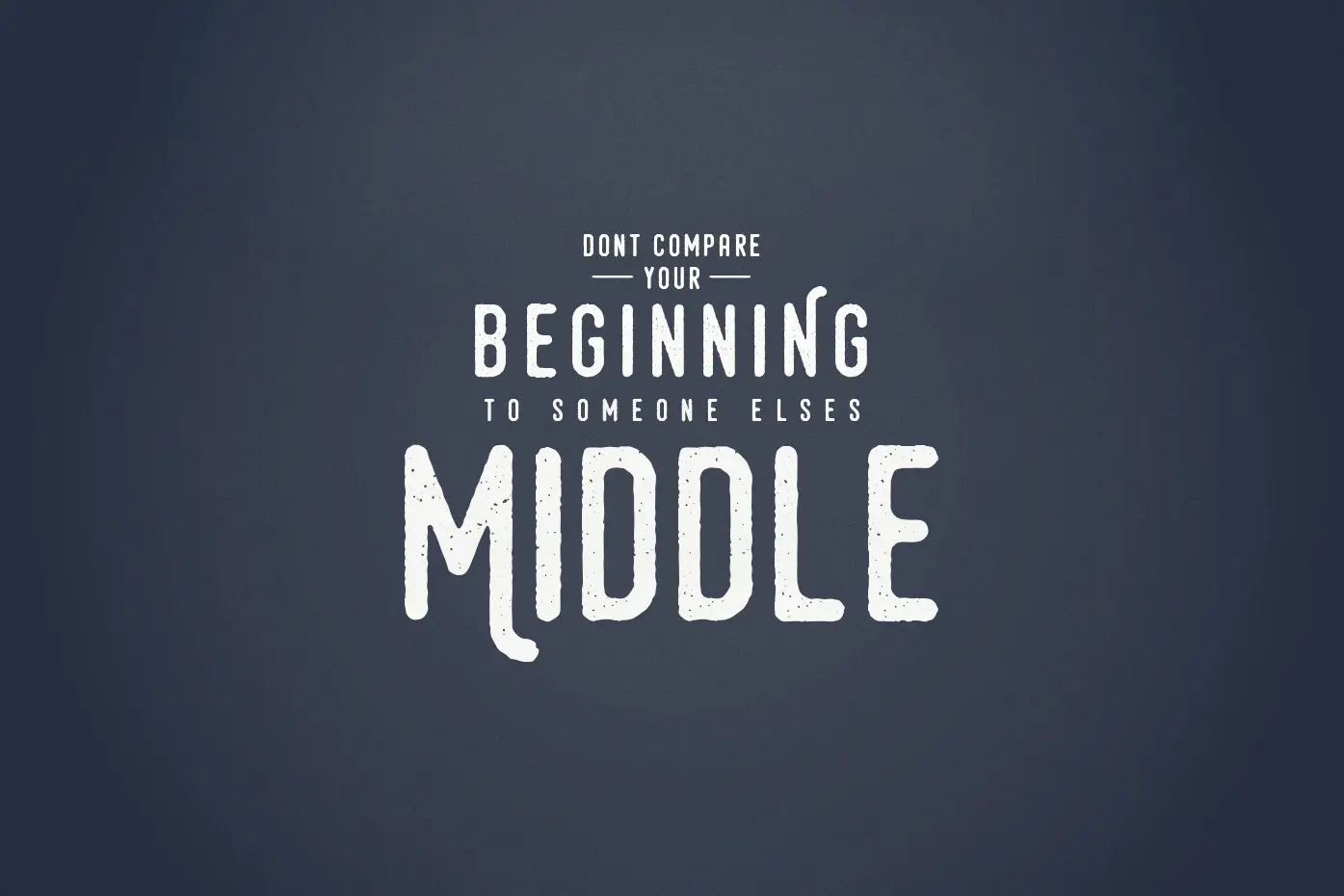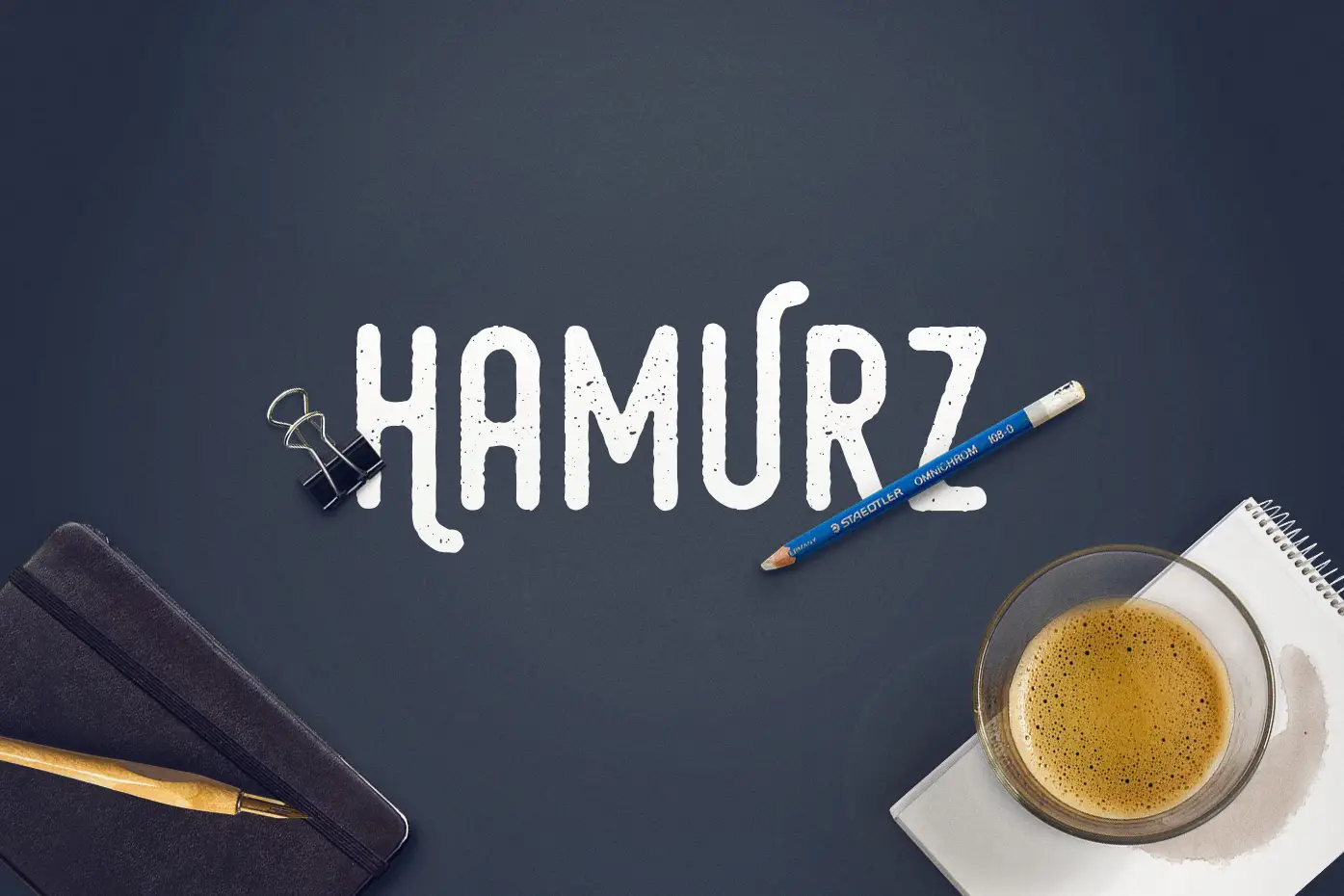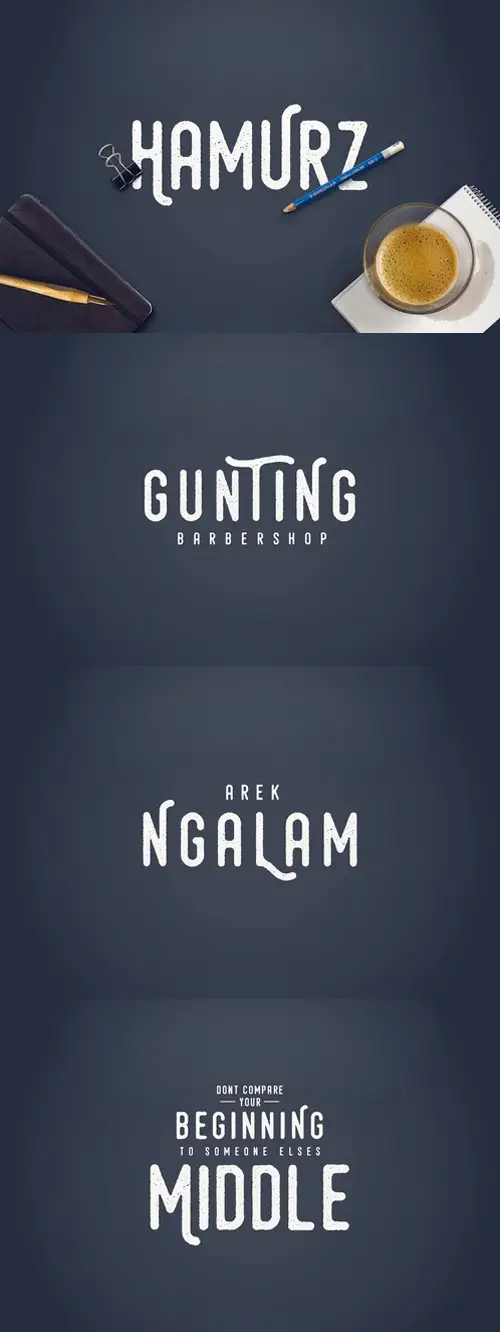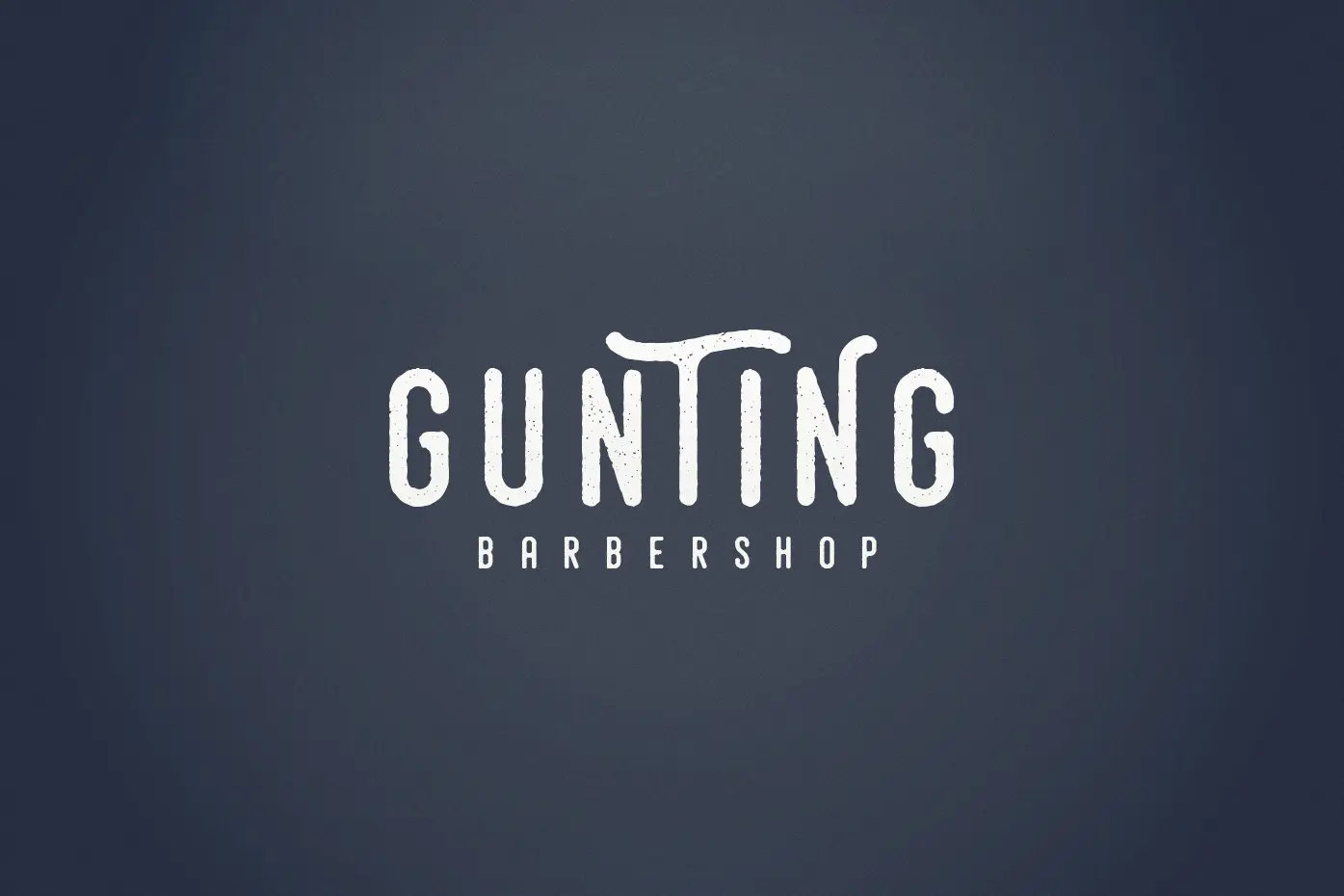
The Hamurz Font is a versatile typeface designed to elevate your creative projects. With its unique blend of modern and classic elements, this font is perfect for a variety of applications.
- Styles: Available in Regular and Bold weights
- Ideal for branding, logos, and promotional materials
- Great for web design and user interfaces
- Suitable for print projects such as business cards and brochures